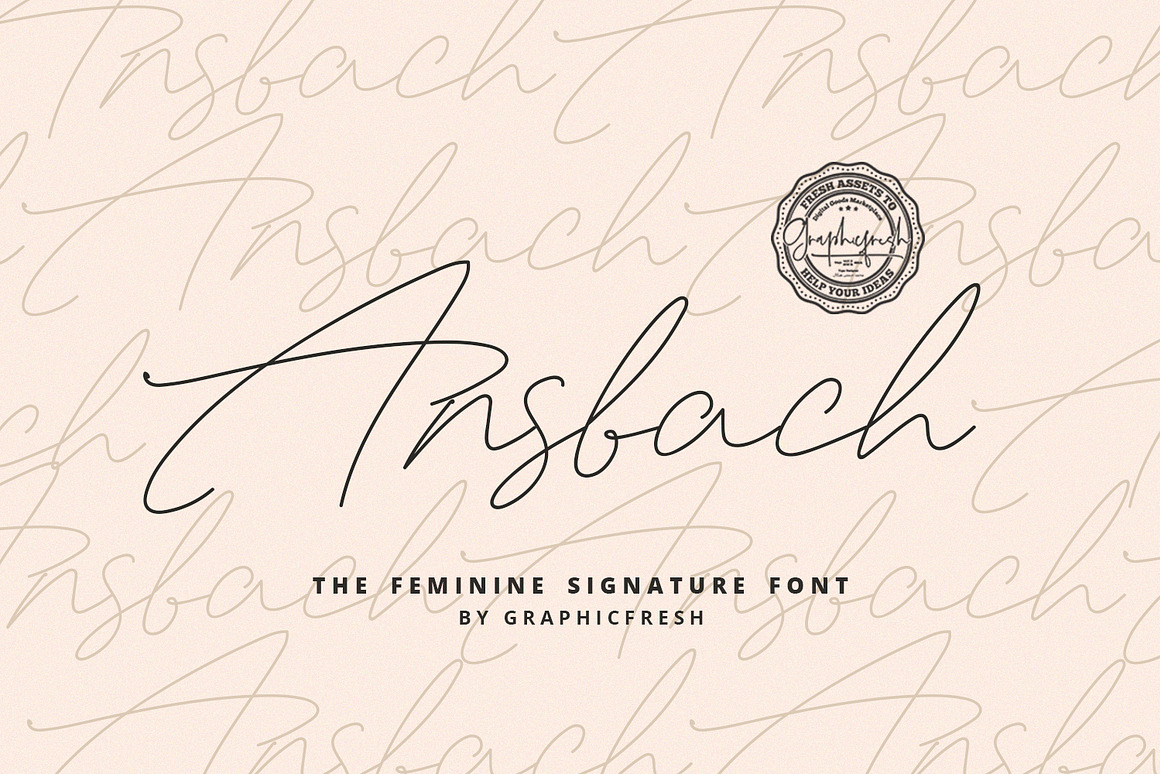
Ansbach | The Feminine Signature Font
Ansbach | The Feminine Signature Font is perfect for elegant personal branding, sophisticated women's lifestyle brands, luxury signature services, refined calligraphy studios, exclusive feminine boutiques, and graceful wedding stationery design. Its distinguished character makes it ideal for high-end fashion consultants, luxury beauty services, sophisticated women's coaching, elegant event planning, refined jewelry brands, and any project requiring feminine authority with signature elegance and distinguished personal appeal.
This font is exciting because it captures the perfect balance of feminine grace and authoritative presence while delivering exceptional functionality for women seeking to create memorable personal brands and signature communications. The elegantly crafted letterforms embody confidence, sophistication, and the kind of refined femininity that commands respect while maintaining graceful charm, creating typography that feels both personally intimate and professionally distinguished.
The Ansbach | The Feminine Signature Font family typically includes Regular, Bold, and ornamental variations with signature flourishes, feminine ligatures, and elegant decorative elements that enhance its distinguished personality. This comprehensive collection enables professional women to create authoritative personal brand systems that maintain feminine authenticity while offering creative flexibility for various signature applications requiring both personal elegance and contemporary professional positioning.
Whether you're developing personal identity systems for executive women, creating materials for feminine luxury services, or designing signature communications for sophisticated female entrepreneurs, Ansbach | The Feminine Signature Font Free Download delivers the feminine authority and signature sophistication that resonates with accomplished women seeking elegant personal branding and distinguished professional presence. Its graceful presence ensures memorable brand recognition across digital platforms and print materials, making it perfect for websites, mobile applications, and feminine campaigns that celebrate women's leadership, personal elegance, and the transformative power of confident feminine expression with contemporary professional standards and authentic signature distinction.